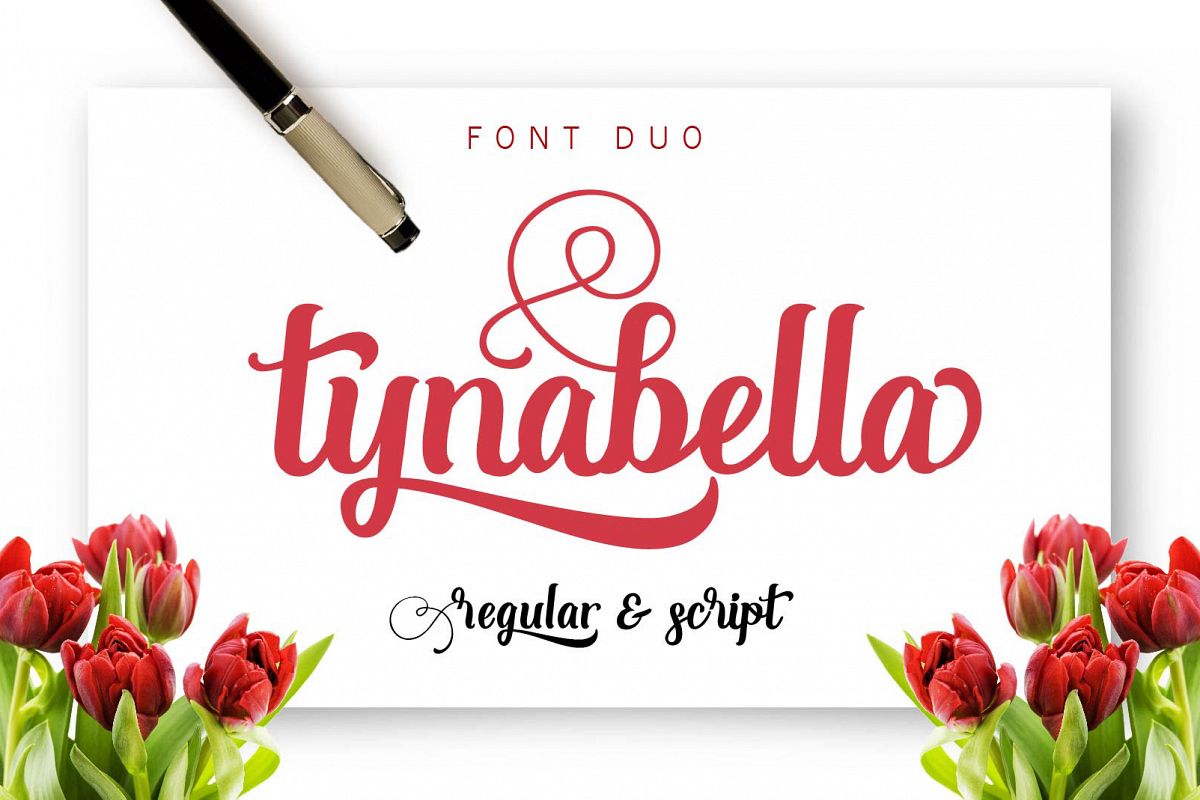
Tynabella
Tynabella Script.
Tynabella.
Tynabella is a modern Calligraphy typeface, It suitable for wedding invitation, greeting cards, T-Shirt, Logo or any design that you create. Tynabella font comes with a complete set of standard characters, Punctuation, international glyphs, The alternative characters were divided into several OpenType features such as Ligature, Alternates and has given PUA unicode (specially coded fonts)
UPPERCASE
lowercase
numeral
punctuation
international glyphs
Stylistic Alternates
Ligatures
Support PUA unicode